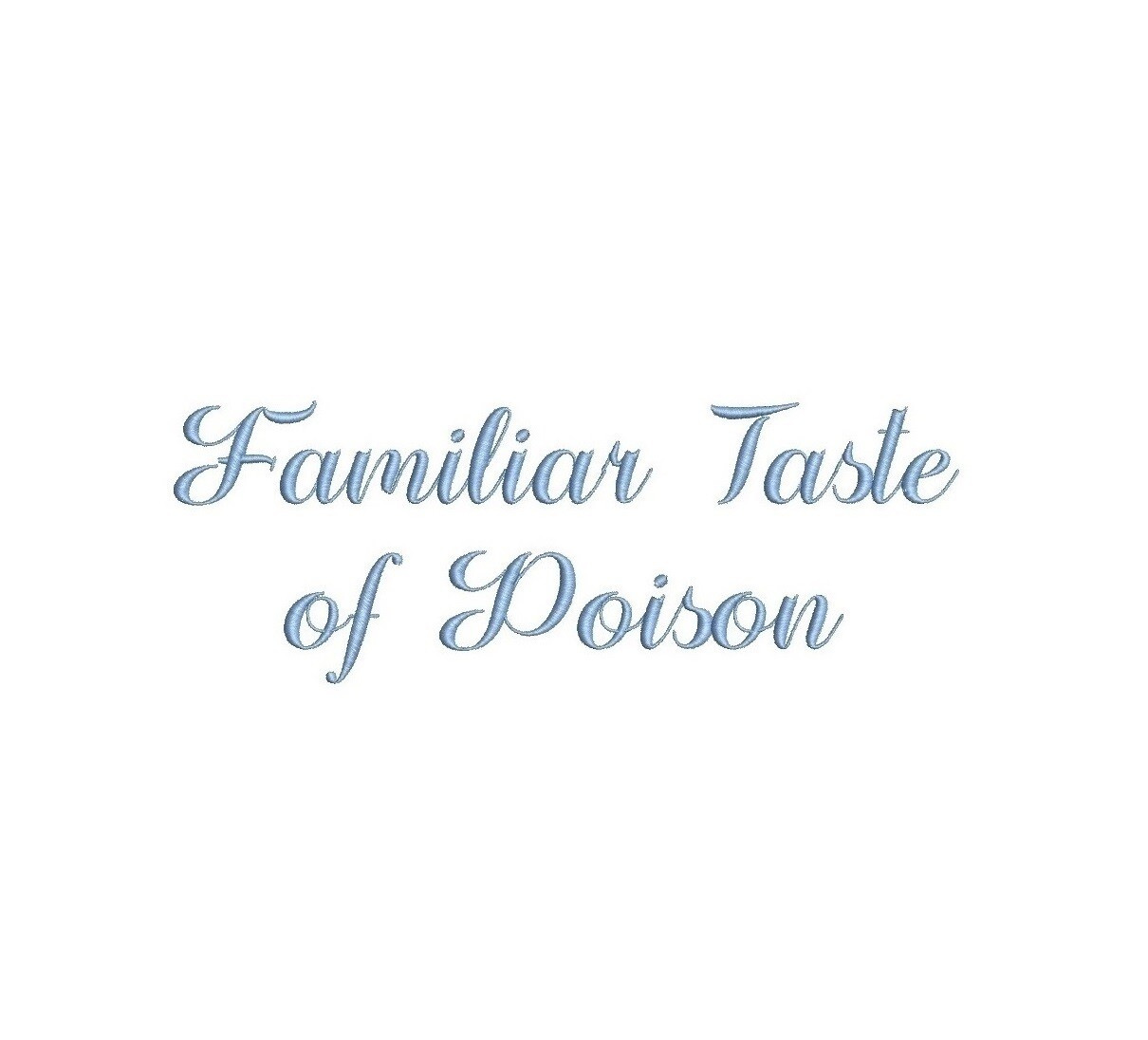
Introducing Familiar Taste of Poison Regular ESA font - a dark and captivating typeface that adds an air of mystery to your designs. Crafted with precision and attention to detail, this premium font guarantees a seamless and enjoyable design experience. Compatible with Wilcom Studio e4.5.6 and Hatch 3 versions and up, this versatile font ensures smooth embroidery creation. Whether it's gothic projects, edgy designs, or dramatic art, Familiar Taste of Poison Regular ESA font infuses an intriguing allure into any endeavor. Don't resist the temptation; elevate your creations with its haunting charm. Get it now and embrace the darker side of creativity.